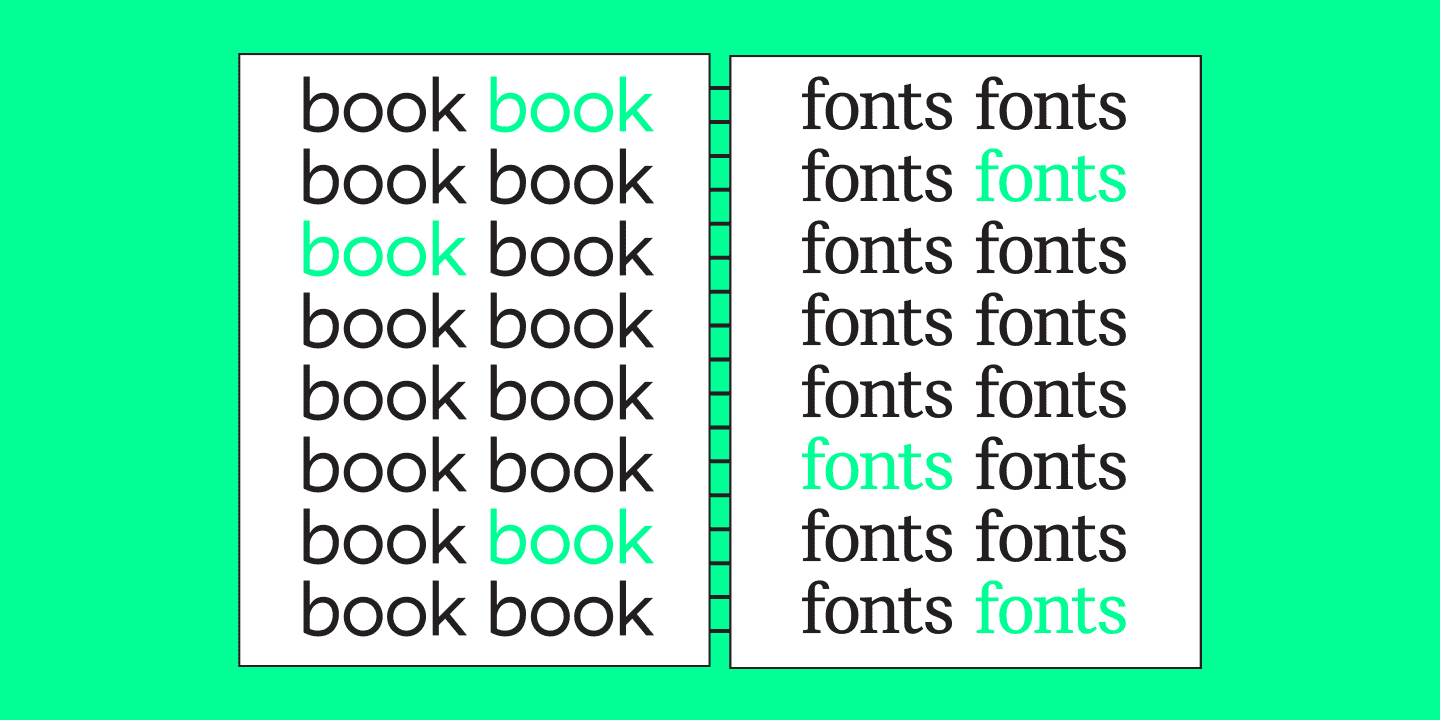
Best Font For Novel . The best font for writing a novel is one that’s reliable, comes alive with character and attention to detail, is beautiful but practical at the same time. And last we have courier, a classic ‘typewriter’ font, that you wouldn’t expect to see in a book but is great for newspapers. Learn how to choose the best fonts and font sizes for different types of books, from print to ebooks, fiction to nonfiction, and more. Baskerville is among the best print fonts for fiction novels. Learn how to choose the perfect font for your story and get links to download them from envato. Explore 25 amazing fonts for novels, from elegant to edgy, from vintage to futuristic. A great web font that is also used for magazines and textbook printing. Find out which fonts suit different genres, such as fantasy, scifi, and ya, and where to buy or download them. A versatile typeface with calligraphic elements, serifs, and new ideas. Find out the popular fonts for book covers, titles, and body text,. Learn how to choose the best fonts for your book layout, from body text to chapter headings, with examples and tips.
Learn how to choose the best fonts for your book layout, from body text to chapter headings, with examples and tips. Find out which fonts suit different genres, such as fantasy, scifi, and ya, and where to buy or download them. Learn how to choose the perfect font for your story and get links to download them from envato. Find out the popular fonts for book covers, titles, and body text,. Learn how to choose the best fonts and font sizes for different types of books, from print to ebooks, fiction to nonfiction, and more. A versatile typeface with calligraphic elements, serifs, and new ideas. Baskerville is among the best print fonts for fiction novels. Explore 25 amazing fonts for novels, from elegant to edgy, from vintage to futuristic. A great web font that is also used for magazines and textbook printing. And last we have courier, a classic ‘typewriter’ font, that you wouldn’t expect to see in a book but is great for newspapers.
Best Font For Novel Learn how to choose the best fonts and font sizes for different types of books, from print to ebooks, fiction to nonfiction, and more. Learn how to choose the perfect font for your story and get links to download them from envato. A versatile typeface with calligraphic elements, serifs, and new ideas. The best font for writing a novel is one that’s reliable, comes alive with character and attention to detail, is beautiful but practical at the same time. Learn how to choose the best fonts for your book layout, from body text to chapter headings, with examples and tips. And last we have courier, a classic ‘typewriter’ font, that you wouldn’t expect to see in a book but is great for newspapers. A great web font that is also used for magazines and textbook printing. Find out the popular fonts for book covers, titles, and body text,. Find out which fonts suit different genres, such as fantasy, scifi, and ya, and where to buy or download them. Learn how to choose the best fonts and font sizes for different types of books, from print to ebooks, fiction to nonfiction, and more. Baskerville is among the best print fonts for fiction novels. Explore 25 amazing fonts for novels, from elegant to edgy, from vintage to futuristic.
300+ FoolProof Fonts to use for your Book Cover Design (an epic list Best Font For Novel Learn how to choose the best fonts and font sizes for different types of books, from print to ebooks, fiction to nonfiction, and more. Learn how to choose the perfect font for your story and get links to download them from envato. And last we have courier, a classic ‘typewriter’ font, that you wouldn’t expect to see in a book. Best Font For Novel.
25 Best Fonts for Book Covers for 2024 Best Font For Novel Learn how to choose the best fonts for your book layout, from body text to chapter headings, with examples and tips. Learn how to choose the perfect font for your story and get links to download them from envato. Learn how to choose the best fonts and font sizes for different types of books, from print to ebooks, fiction to. Best Font For Novel.
The 8 brilliant fonts you NEED to use in your book layout (with type Best Font For Novel A versatile typeface with calligraphic elements, serifs, and new ideas. A great web font that is also used for magazines and textbook printing. The best font for writing a novel is one that’s reliable, comes alive with character and attention to detail, is beautiful but practical at the same time. Learn how to choose the perfect font for your story. Best Font For Novel.
20+ Best Fonts for Books (Cover, Titles, and Body Text) Design Shack Best Font For Novel Find out which fonts suit different genres, such as fantasy, scifi, and ya, and where to buy or download them. A versatile typeface with calligraphic elements, serifs, and new ideas. Baskerville is among the best print fonts for fiction novels. Learn how to choose the best fonts and font sizes for different types of books, from print to ebooks, fiction. Best Font For Novel.
15+ Best Fonts for Books Free and Premium Fonts—MasterBundles Best Font For Novel Find out which fonts suit different genres, such as fantasy, scifi, and ya, and where to buy or download them. And last we have courier, a classic ‘typewriter’ font, that you wouldn’t expect to see in a book but is great for newspapers. Learn how to choose the perfect font for your story and get links to download them from. Best Font For Novel.
20 Fonts You Can Use for Book Covers on Canva by Author Shanea Best Font For Novel The best font for writing a novel is one that’s reliable, comes alive with character and attention to detail, is beautiful but practical at the same time. Learn how to choose the perfect font for your story and get links to download them from envato. Explore 25 amazing fonts for novels, from elegant to edgy, from vintage to futuristic. Learn. Best Font For Novel.
10 Best Fonts to Make Your Book Look Like a Bestseller SWATT Books Best Font For Novel Find out which fonts suit different genres, such as fantasy, scifi, and ya, and where to buy or download them. A versatile typeface with calligraphic elements, serifs, and new ideas. Learn how to choose the best fonts for your book layout, from body text to chapter headings, with examples and tips. Learn how to choose the perfect font for your. Best Font For Novel.
20 Best Book Fonts for Covers, Titles & More 2021 Theme Junkie Best Font For Novel The best font for writing a novel is one that’s reliable, comes alive with character and attention to detail, is beautiful but practical at the same time. And last we have courier, a classic ‘typewriter’ font, that you wouldn’t expect to see in a book but is great for newspapers. Explore 25 amazing fonts for novels, from elegant to edgy,. Best Font For Novel.
20+ Best Fonts for Books (Cover, Titles, and Body Text) Design Shack Best Font For Novel Find out which fonts suit different genres, such as fantasy, scifi, and ya, and where to buy or download them. The best font for writing a novel is one that’s reliable, comes alive with character and attention to detail, is beautiful but practical at the same time. Baskerville is among the best print fonts for fiction novels. Learn how to. Best Font For Novel.